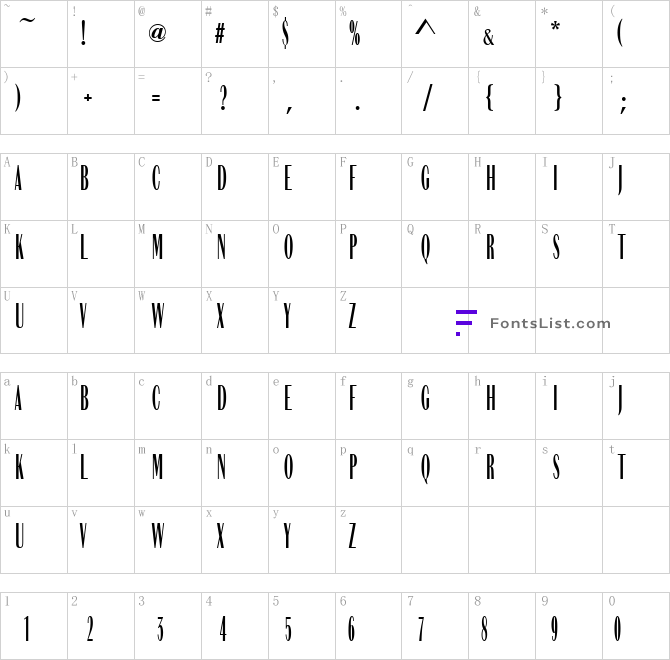
- Font Name:Becker Compress
Becker_Compress.ttf is a very beautiful artistic font, Becker_Compress.ttf is widely used in the design and printing of various books and pictures,Becker_Compress.ttf has a strong visual impact,Becker_Compress.ttf is a commonly used font in newspapers, magazines and books, and is used in posters, e-commerce Poster design, store design, logo design, font design and other fields.Becker_Compress.